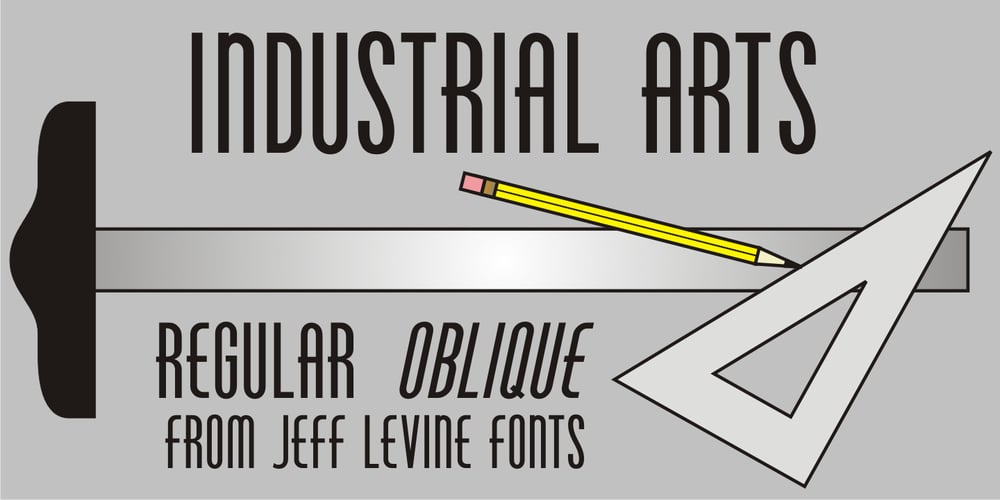
Industrial Arts JNL
Industrial Arts JNL font
Industrial Arts JNL Font Family was designed by Jeff Levine and published by Jeff Levine. Industrial Arts JNL contains 2 styles and family package options. In 1935, Morris Fuller Benton designed Phenix American for American Type Founders. For 2017, the classic Art Deco design has been reinterpreted in an all-caps display version with an ever-so-slight “hand made” feel. Industrial Arts JNL is available in both regular and oblique versions.